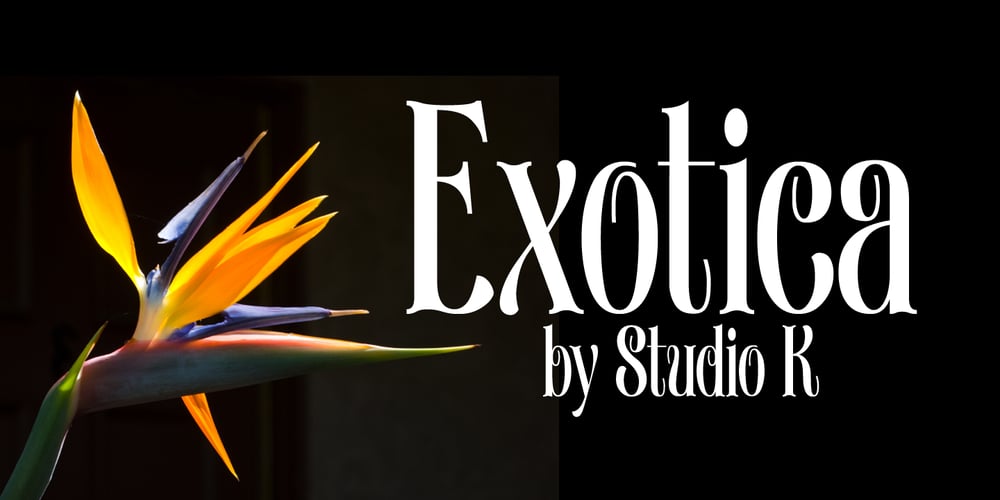
Exotica
Exotica font
Exotica Font Family was designed by Keith Tricker and published by Studio K. Exotica contains 2 styles and family package options. Old World elegance meets Levantine luxury in this stylish new font from Studio K. It takes its inspiration from the numerals on antique clocks and pocket watches – specifically the curlicue on the figure ‘2’ – from which the entire font has been extrapolated. The font also includes alternate swash capitals.